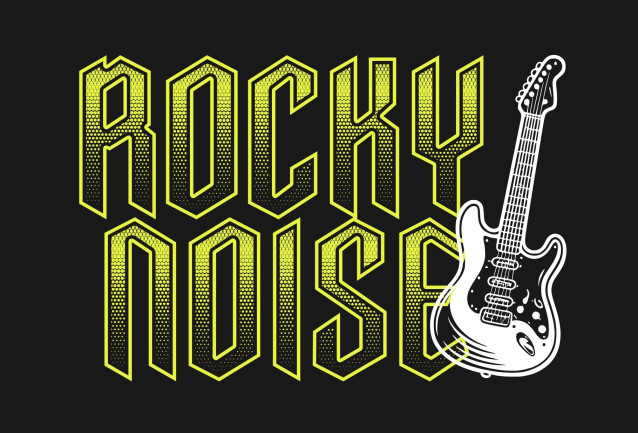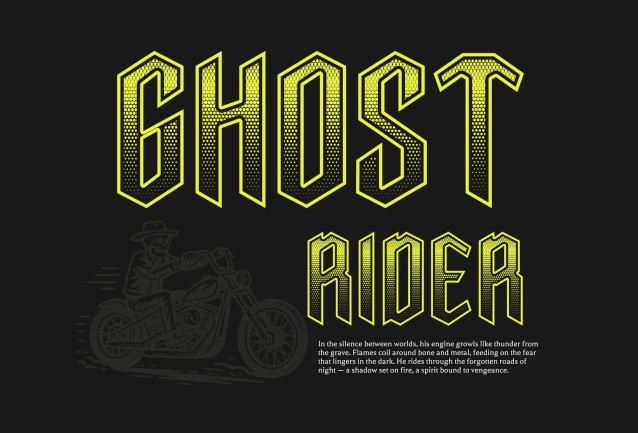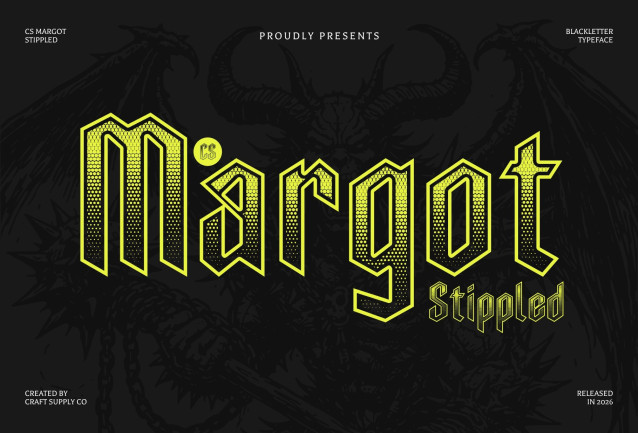
CS Margot stippled Font
CS Margot Stippled – Blackletter Font: A Bold Tribute to Tradition and Elegance
Classic Blackletter with Medieval Influence
This font is a bold blackletter display font that merges traditional gothic calligraphy with dramatic visual flair. Strong vertical strokes, sharp angular edges, and ornate flourishes create a commanding presence that echoes the grandeur of medieval manuscripts and ceremonial lettering.
Intricate Detailing with Artistic Depth
Rich decorative elements and carefully crafted letterforms bring refined elegance to this classic style. The bold structure delivers authority and sophistication, while the ornamental details add depth and artistry perfect for designs that aim to feel prestigious and timeless.
Stippled Texture for Vintage Character
The stippled effect introduces a dense dotted texture that enhances the antique quality of the typeface. This subtle dotwork adds a handcrafted print aesthetic, giving the font a tactile, aged appearance that strengthens its historical and luxurious atmosphere.